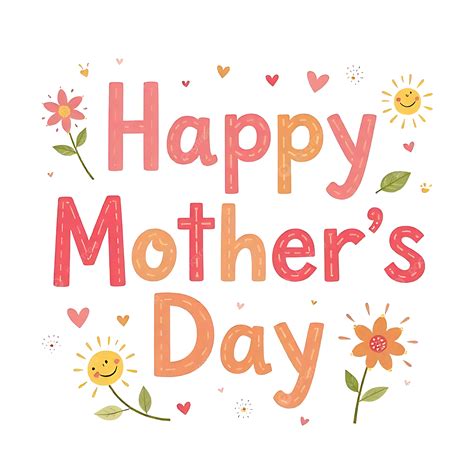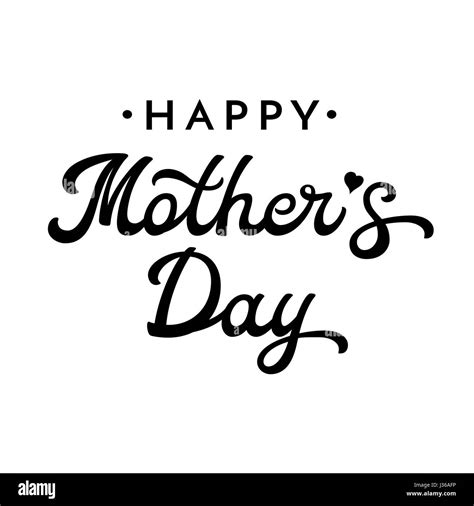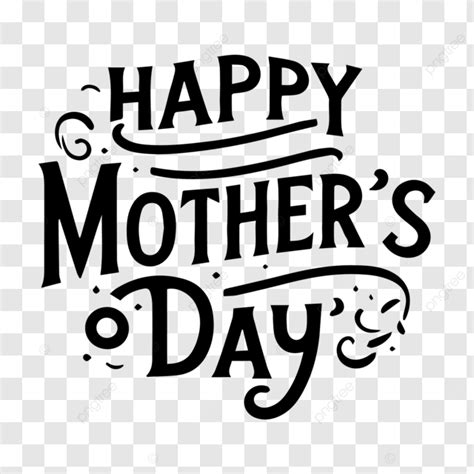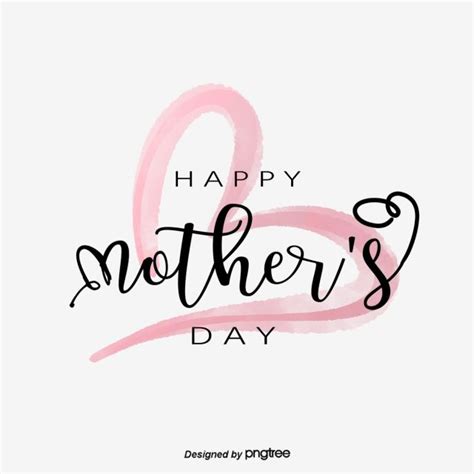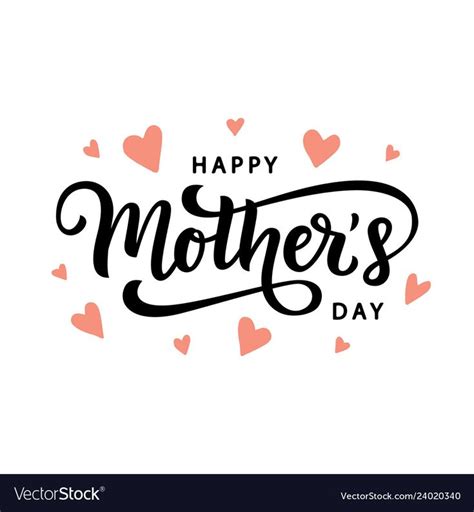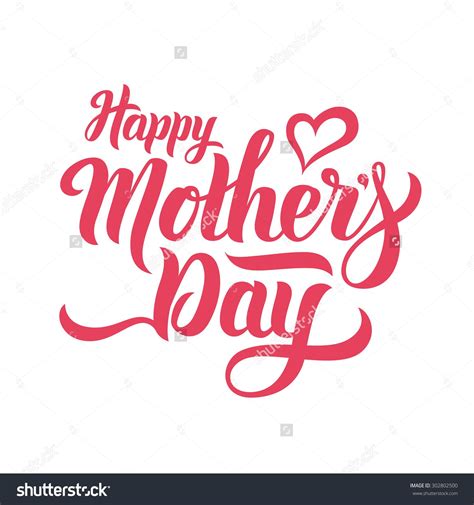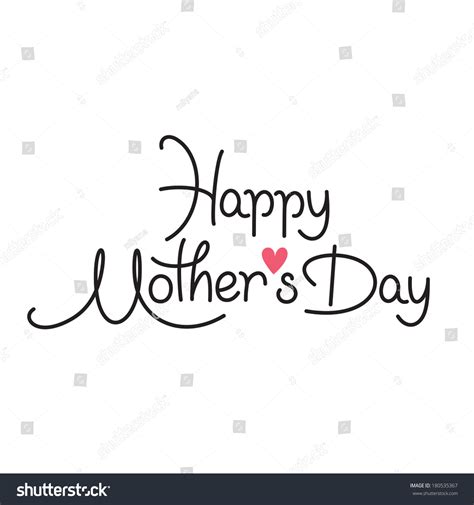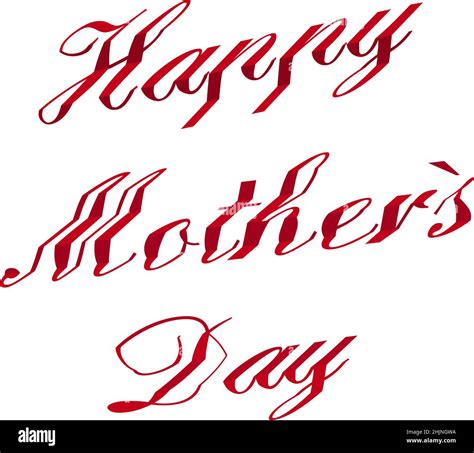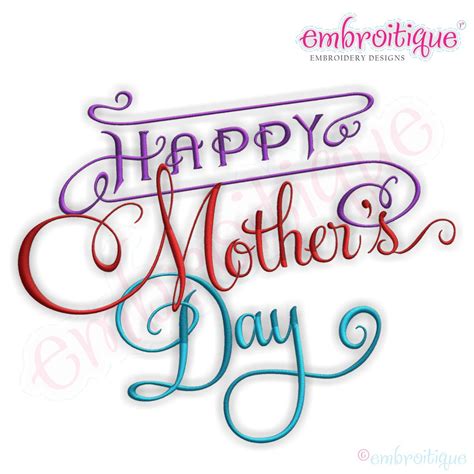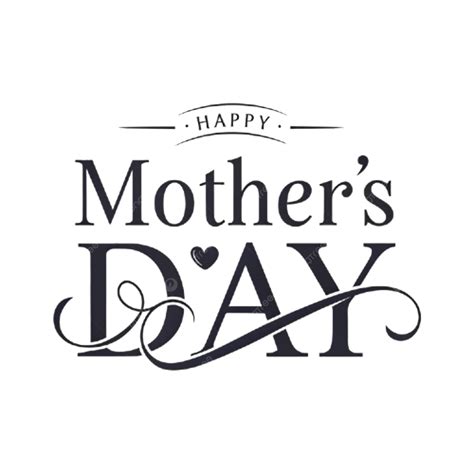
HAPPY MOTHERS DAY FONT
Happy Mother's Day is a special occasion to celebrate and honor mothers, and it's a great opportunity to express your love and appreciation. One creative way to do this is by using a unique and eye-catching Happy Mother's Day font to craft personalized messages, cards, or gifts. This article explores the concept of using special fonts to celebrate motherhood and provides an overview of the various options available.
The concept of custom fonts has gained popularity in recent years, allowing individuals to add a personal touch to their messages and designs. When it comes to Mother's Day, using a dedicated font can make the celebration even more memorable. There are numerous online resources and font libraries that offer a wide range of options, from elegant and traditional to playful and whimsical.
One of the key benefits of using a Happy Mother's Day font is the ability to create a visually appealing and unique message. Whether it's for a card, a gift, or a digital post, a well-chosen font can make your words stand out and convey your emotions effectively. It adds a creative element to the celebration, making it more engaging and memorable for the recipient.